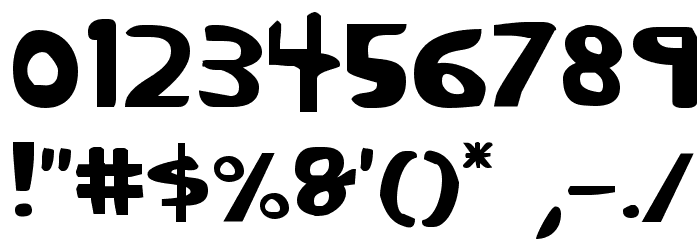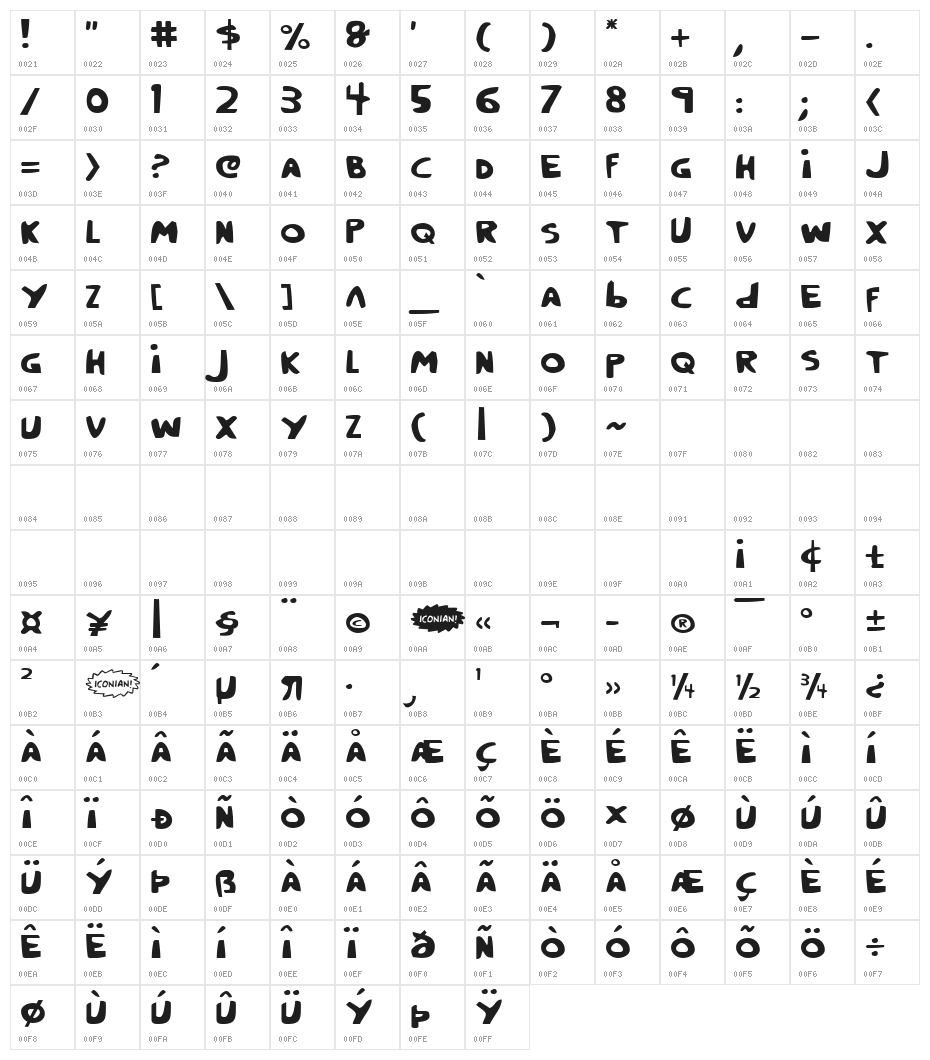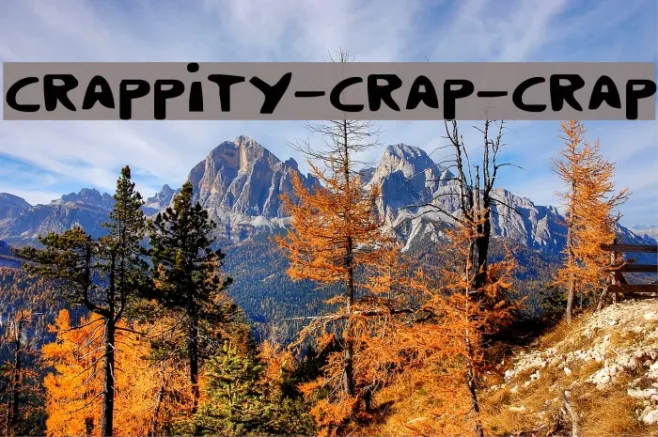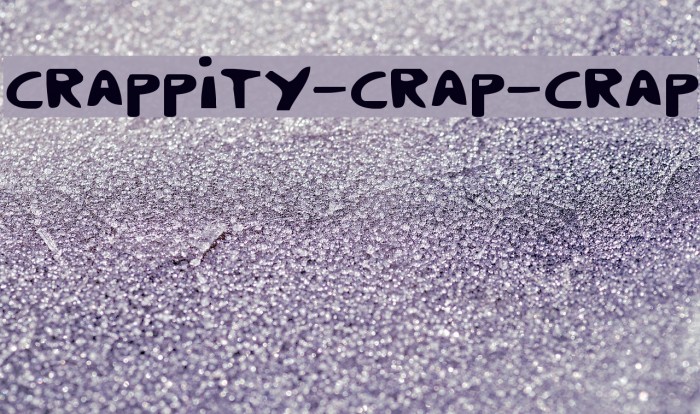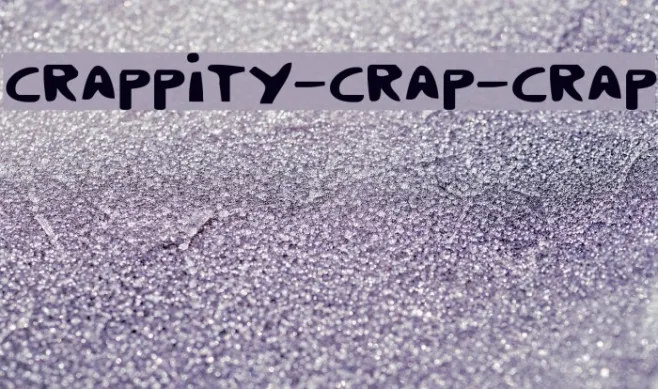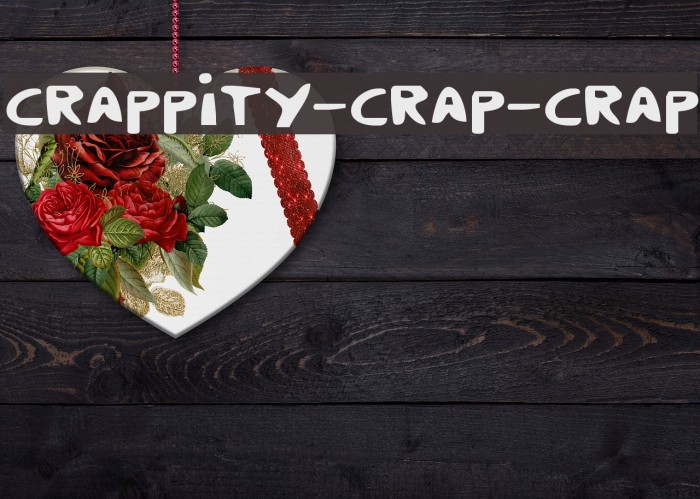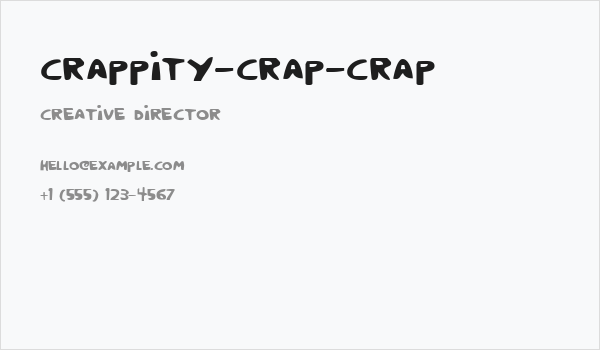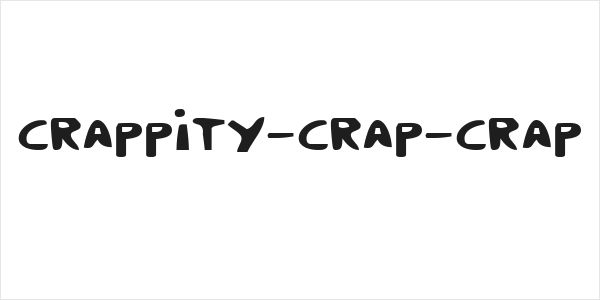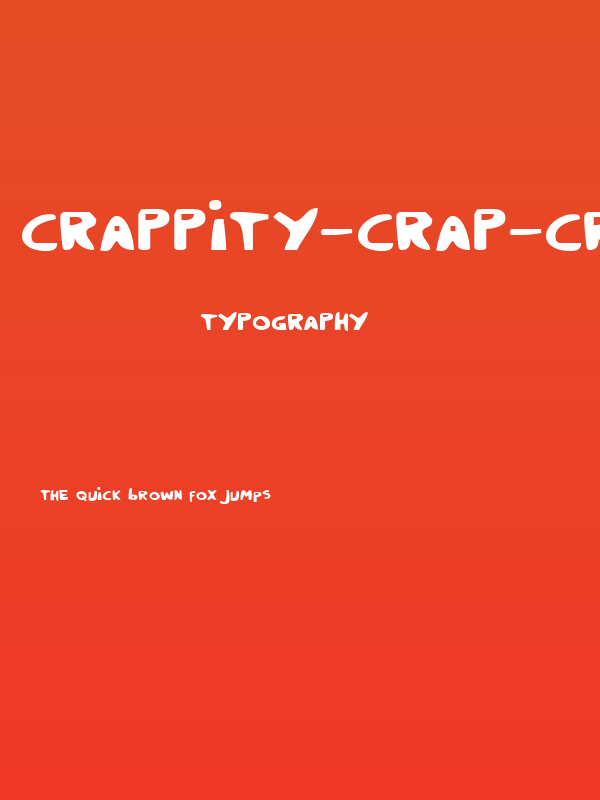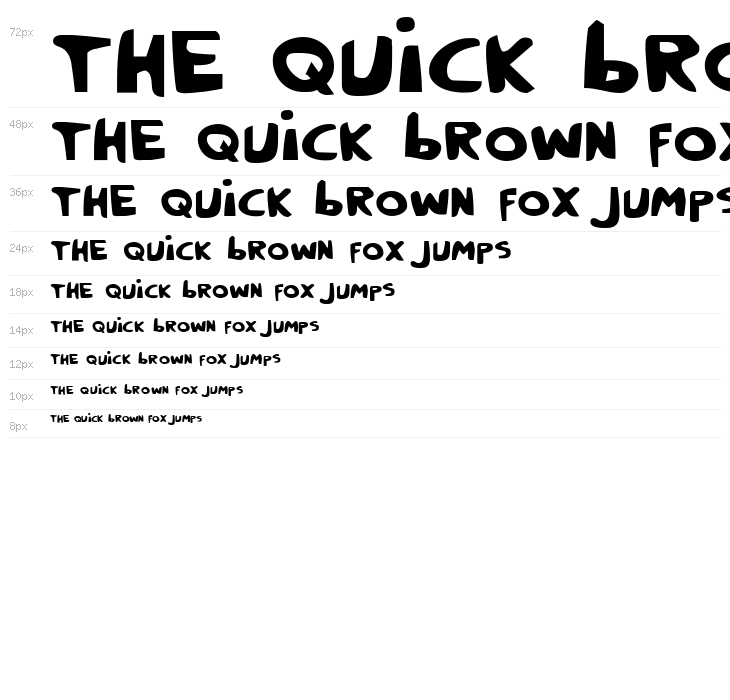
Crappity-Crap-Crap Font
Crappity-Crap-Crap Description
This playful and bold font features a whimsical, hand-drawn style with irregular shapes and a lively character. The letters are thick and rounded, giving a sense of fun and informality. The uppercase and lowercase letters maintain a consistent style, with exaggerated curves and a slightly uneven baseline that adds to its charm. Numbers and special characters follow the same playful design, making it suitable for creative and informal projects. The overall appearance is dynamic and eye-catching, perfect for capturing attention.